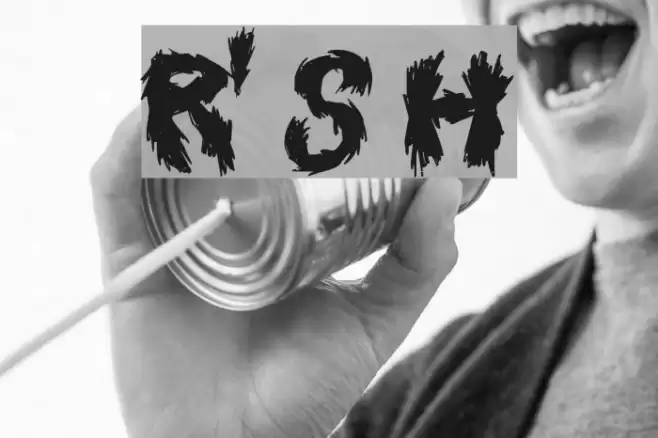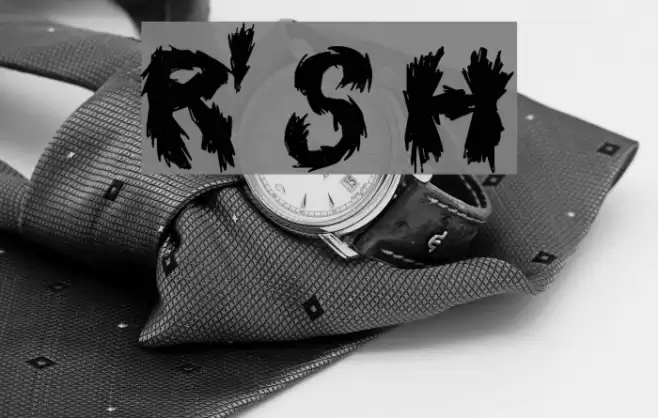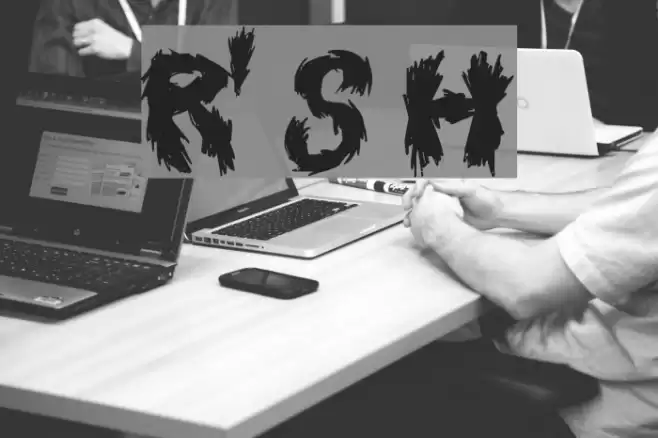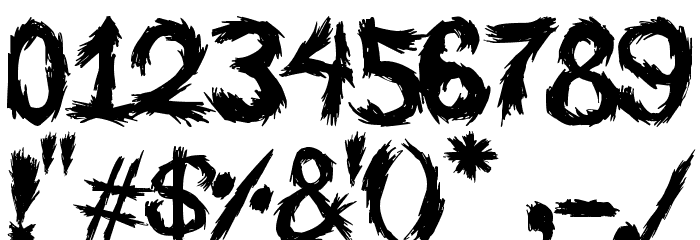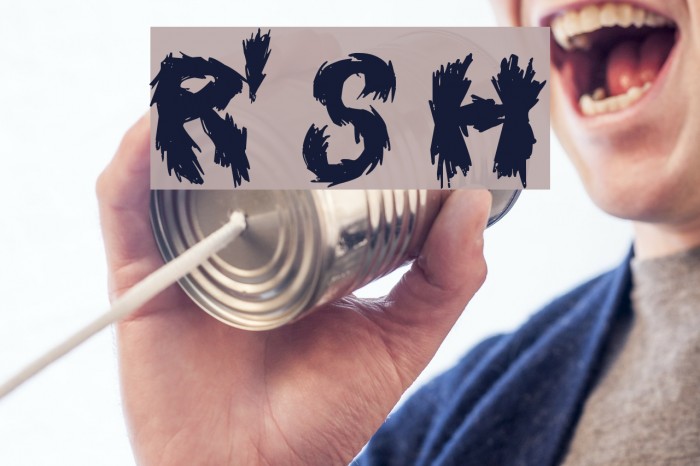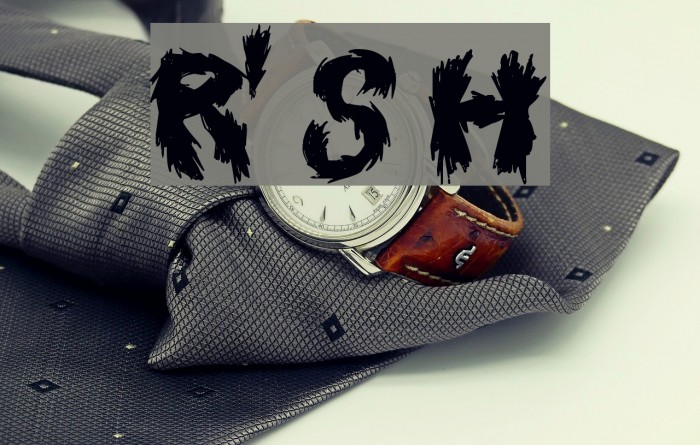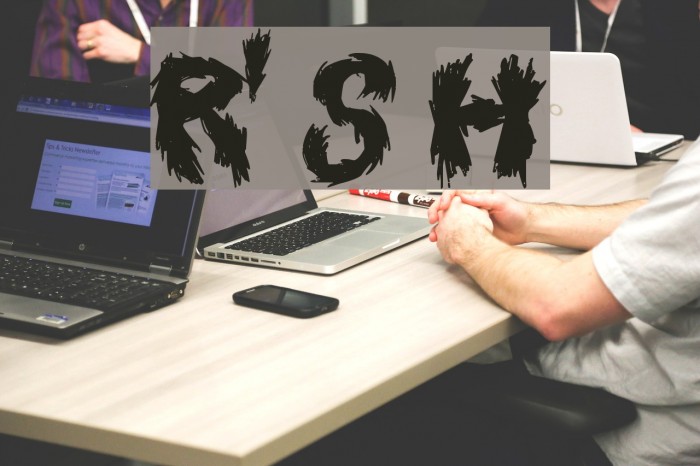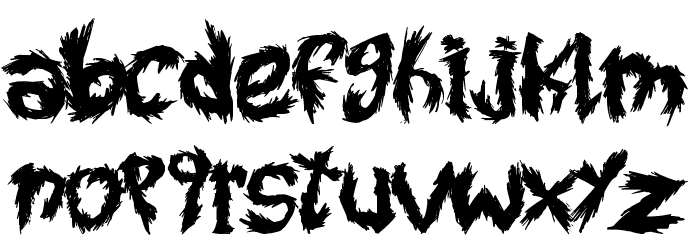
Roy's Scratched Handwritting Font
Roy's Scratched Handwritting Description
This font exhibits a bold and dynamic style, characterized by its jagged, rough edges that mimic the appearance of scratched handwriting. Each letter and number is uniquely crafted with an irregular, distressed texture, giving it a raw and energetic feel. The uppercase and lowercase letters maintain a consistent theme, with exaggerated strokes and a sense of movement. The numerals and special characters follow suit, ensuring a cohesive look across all glyphs. This font's distinctive style makes it stand out, ideal for projects that require a touch of edginess and creativity.
A bold, jagged font with a scratched, handwritten appearance.
- Proposed Projects: Ideal for album covers, posters, graffiti art, and edgy branding projects.